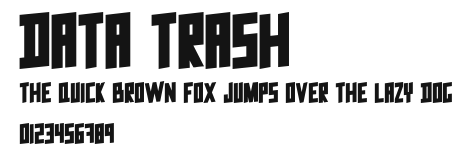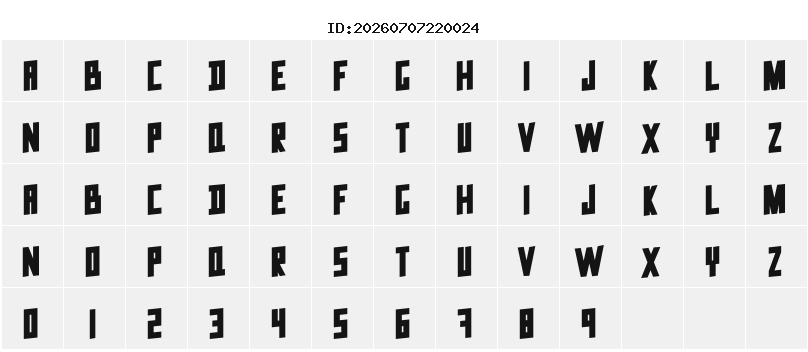
• Font Name: Data Trash
• Font Style: #2
• Font ID: Macromedia Fontographer 4.1 Data Trash #2
• Full Font Name: Data Trash #2
• Version: Macromedia Fontographer 4.1 22/3/2001
• PostScript Name: DataTrash2
• Character Count: 139
About Data Trash.ttf
Data Trash.ttf is a modern, elegant sans-serif font designed for ultimate readability and visual harmony. Perfect for branding, headlines, web design, and print materials.